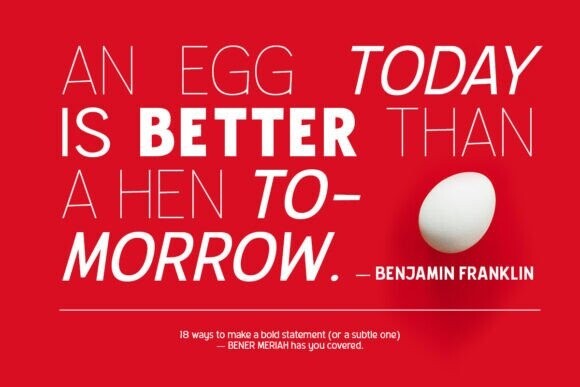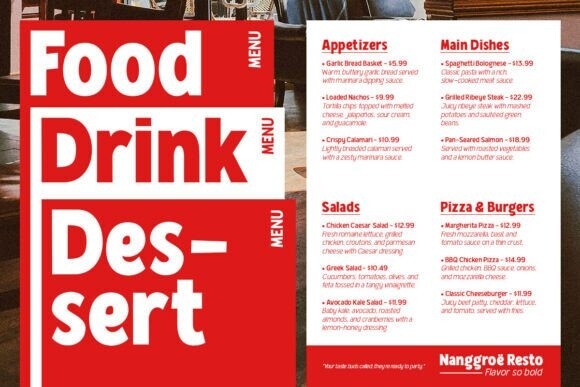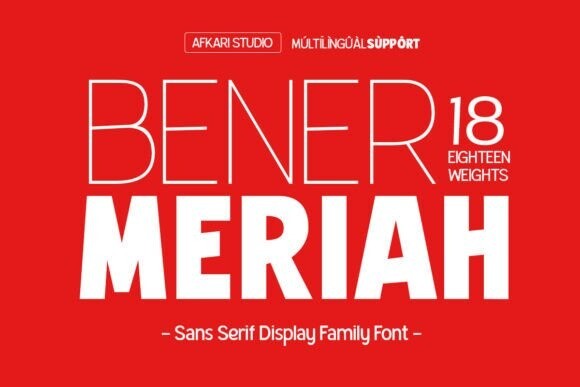
Bener Meriah Font
Bener Meriah Font is a sophisticated and highly versatile sans-serif font family meticulously crafted for designers who demand both elegance and functionality. This typeface offers an impressive range of 18 weights, from the delicate and airy Thin to the commanding and bold Black, with matching Italics for each weight. The result is a comprehensive toolkit that meets the needs of modern design projects across a variety of styles and applications.